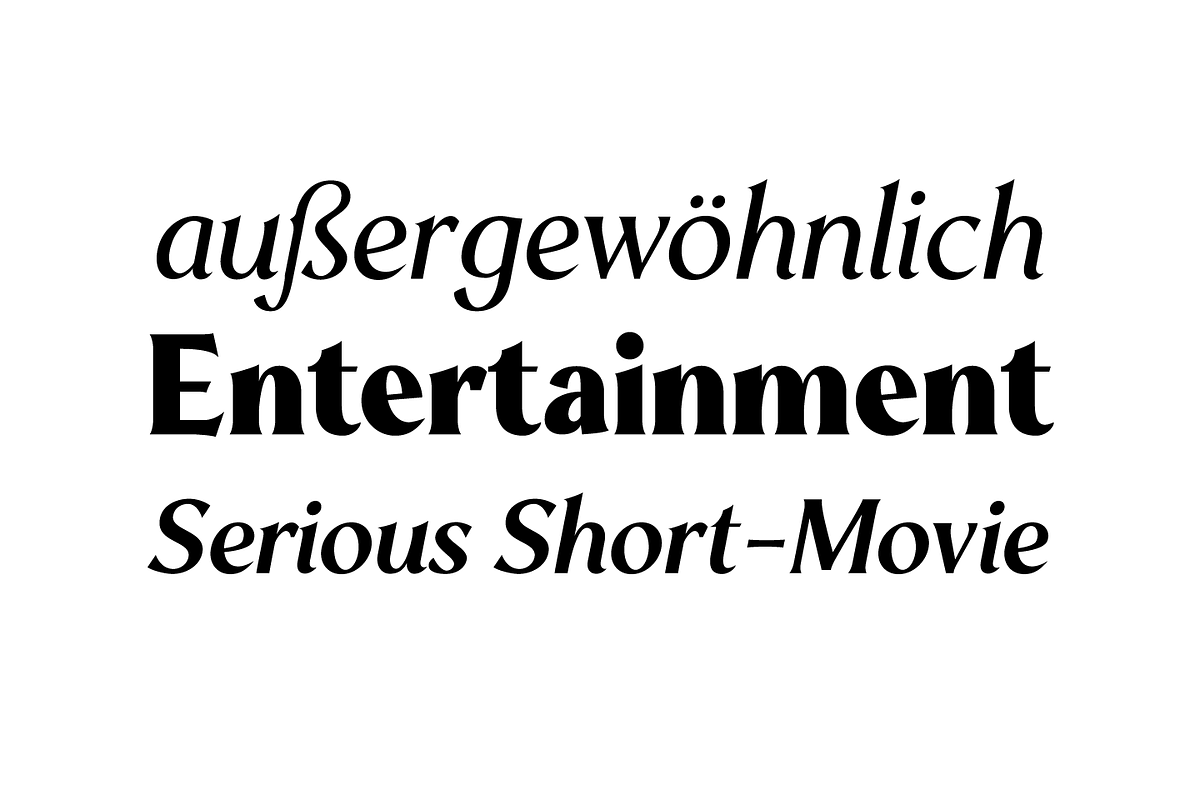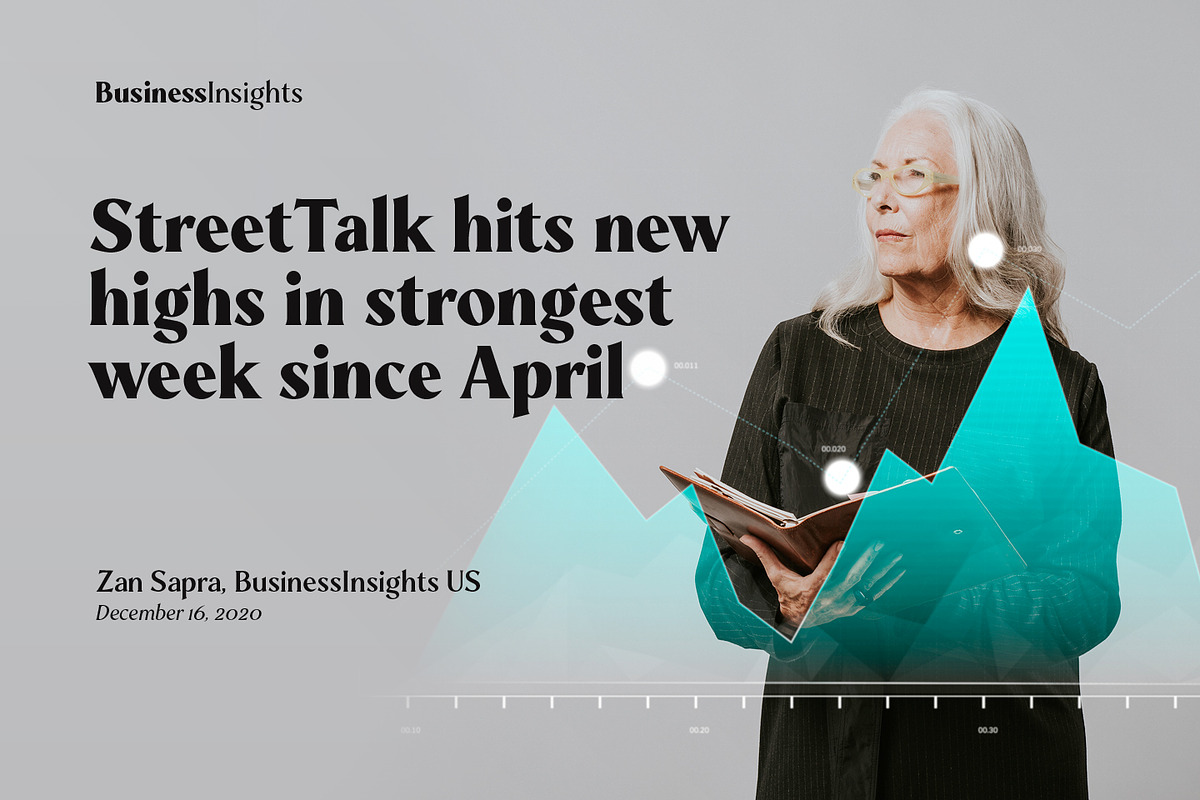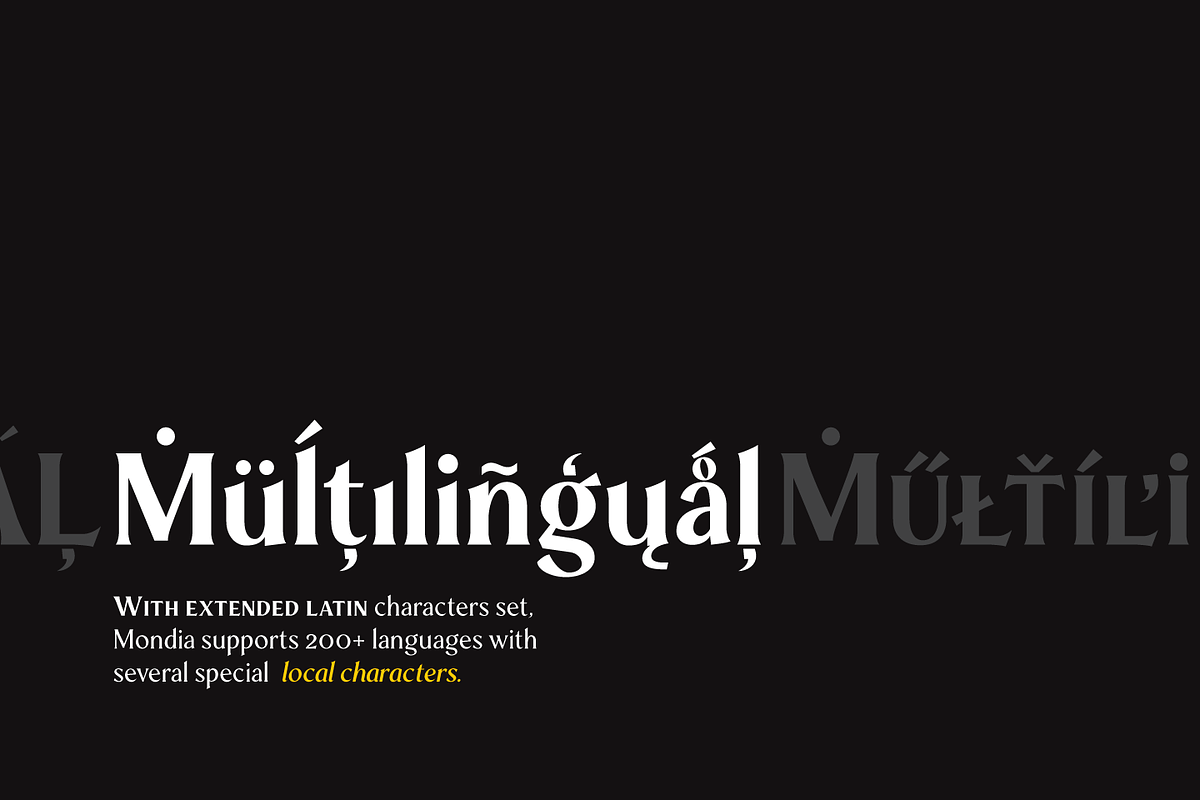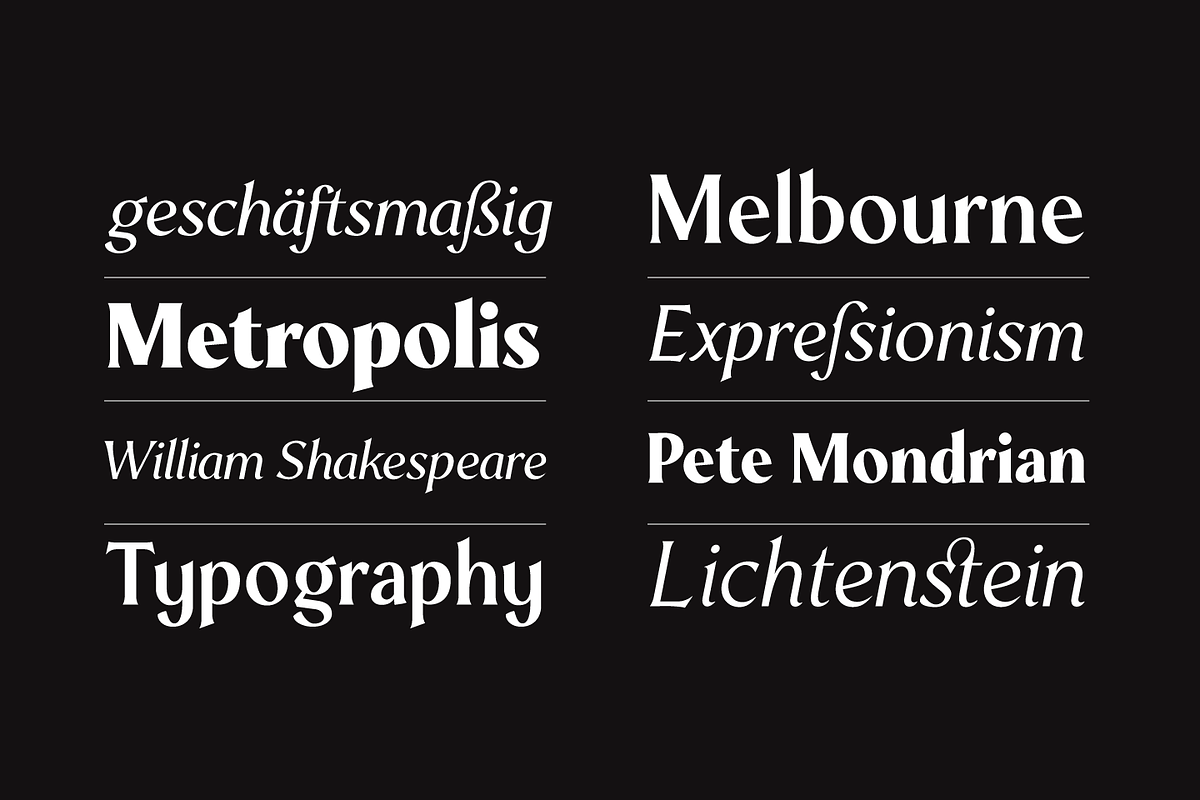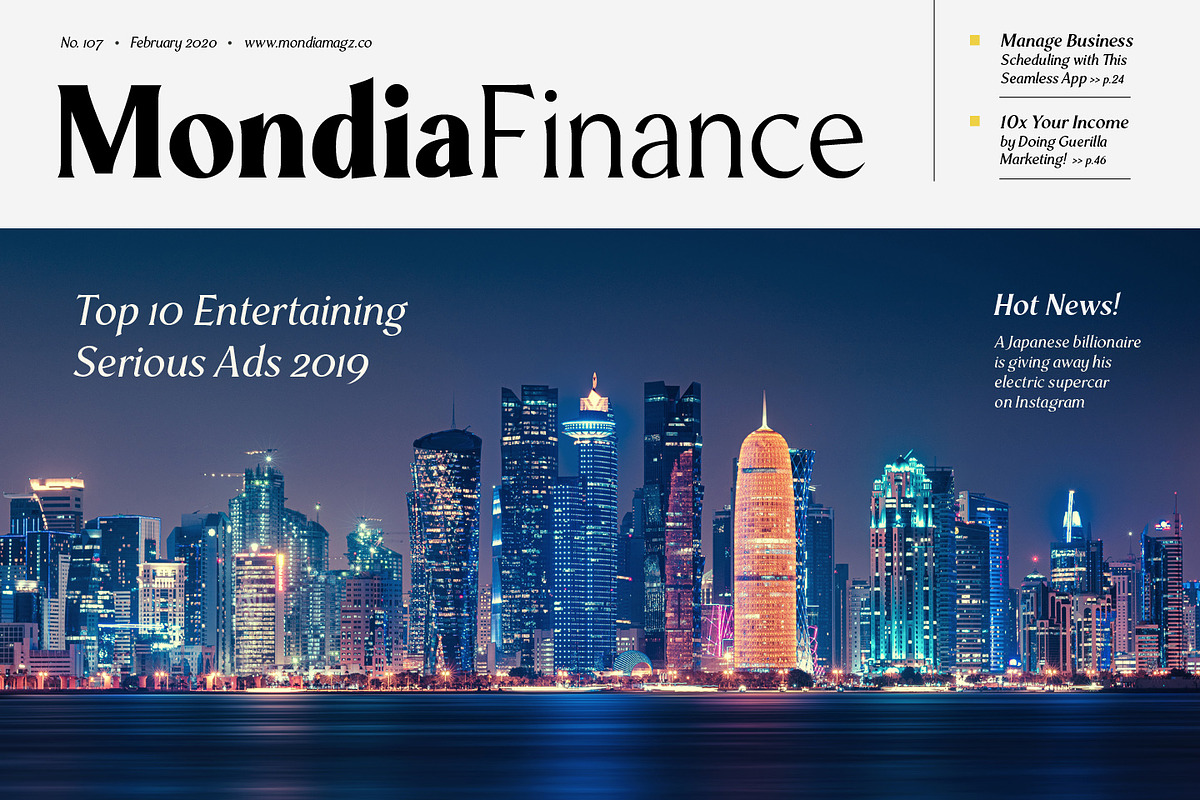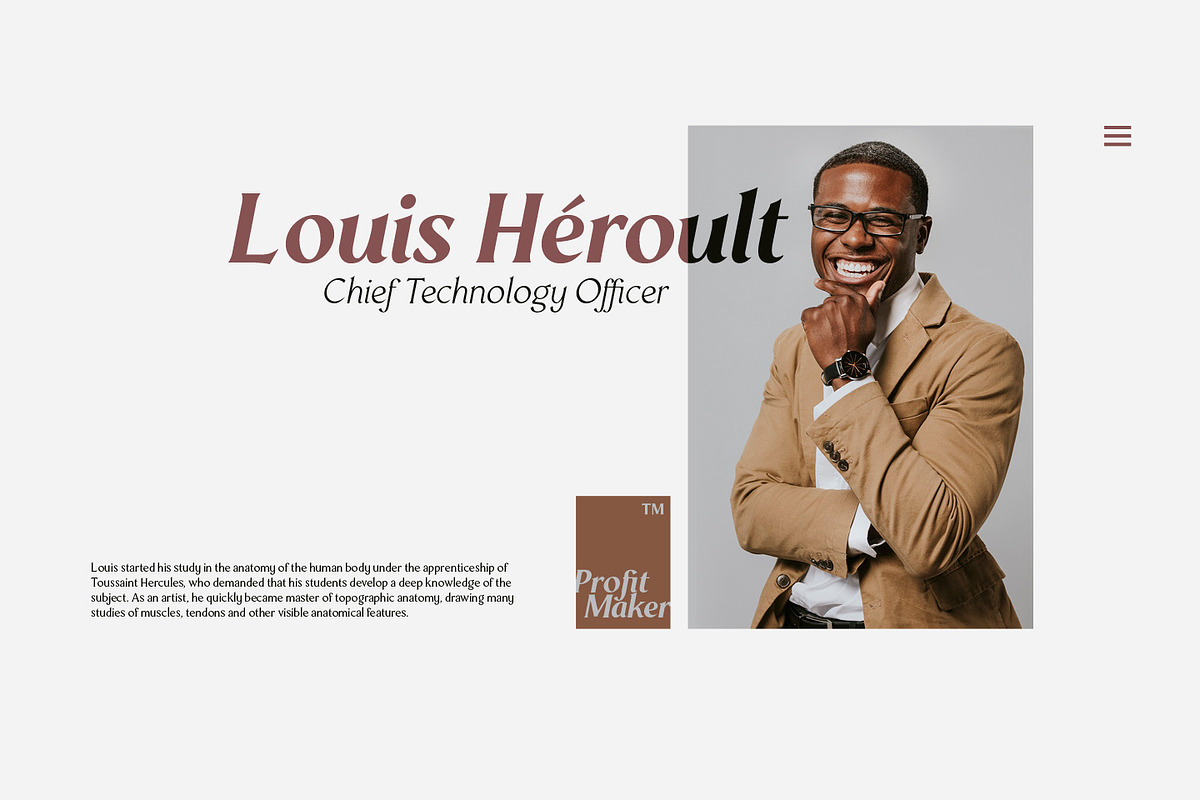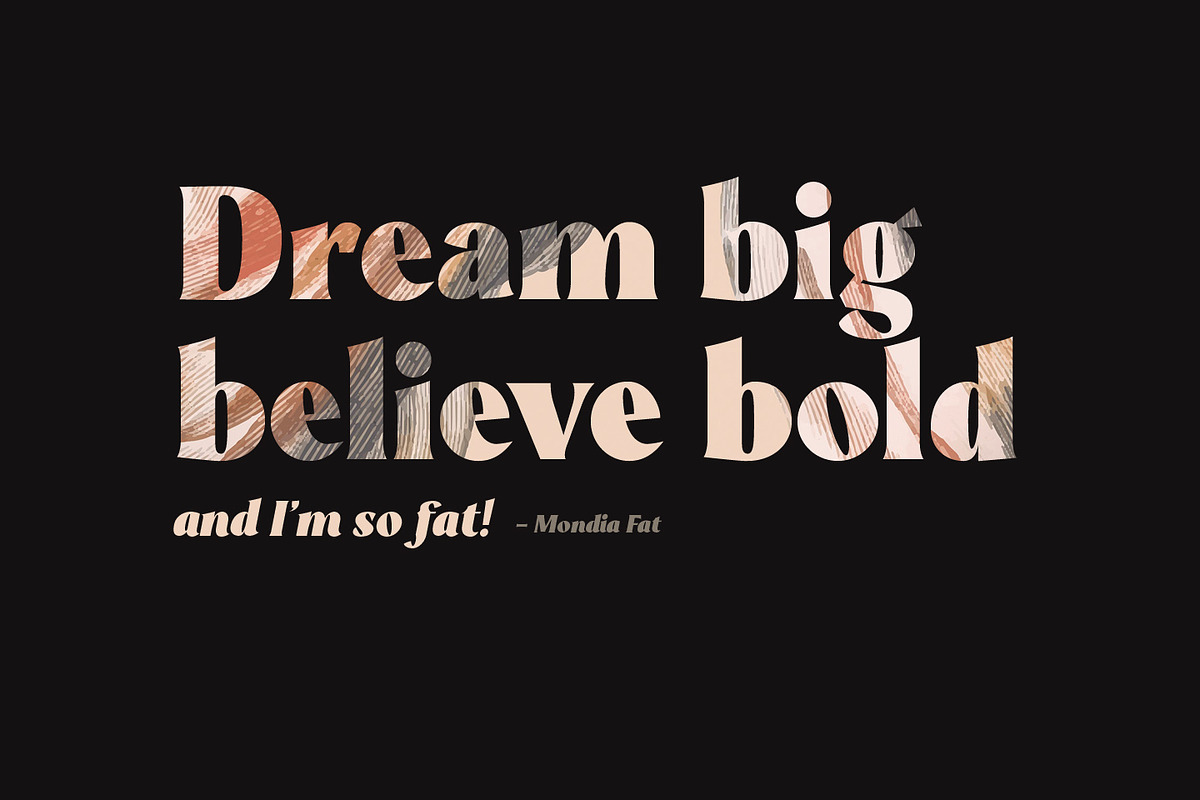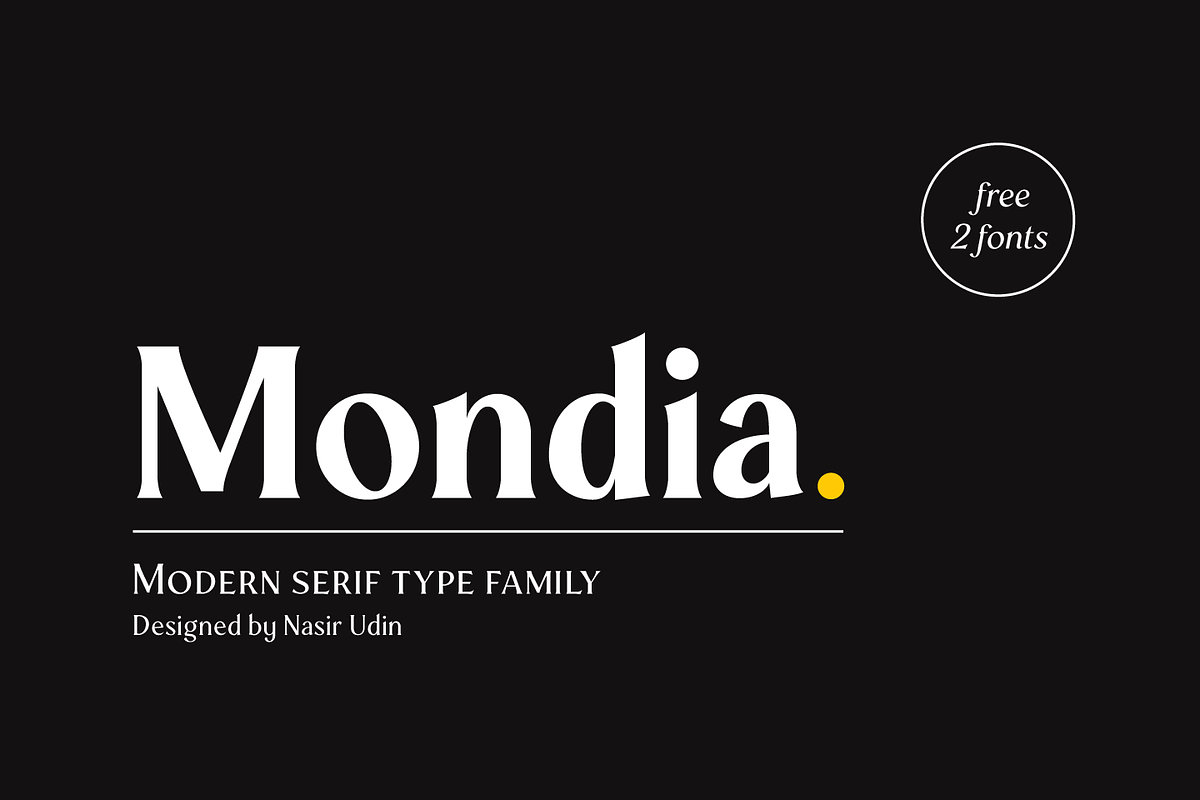
Mondia - 18 Fonts
Mondia is a modern serif font family with 18 fonts inspired by transitional and contemporary typefaces. Mondia has been designed with high-contrast character ratio to give an elegant touch, and high x-height to give sentences more legibility.
Ranging from thin to fat with its matching italics, Mondia offers many possibilities to be applied in many graphic or editorial projects. Also thanks to the extended latin character set so that Mondia supports 200+ latin-based languages.
Mondia also has a complete set of true small caps that integrate beautifully with lowercase letters to give more emphasis to the highlighted texts.
Mondia has OpenType features built in, such as stylistic alternates, standard ligatures, special ligatures, oldstyle figures, localized letters, automatic fractions, sub/superscripts, and ordinals. Mondia also has a complete set of proportional and tabular numbers.
With those features, Mondia is a great choice for headline, branding, titles, but can also perfectly be used in small articles.
9 weightswith matching italics
Glyph count: 816 glyphs (uprights), 792 glyphs (italics)
OpenType Features:stylistic alternates, small caps, standard ligatures, discretionary ligatures, contextual alternates, automatic fractions, numerator, denominator, superscript, subscript, oldstyle figure, localization
Supported Languages:Western Europe, Central/Eastern Europe, Baltic, Turkish, Romanian